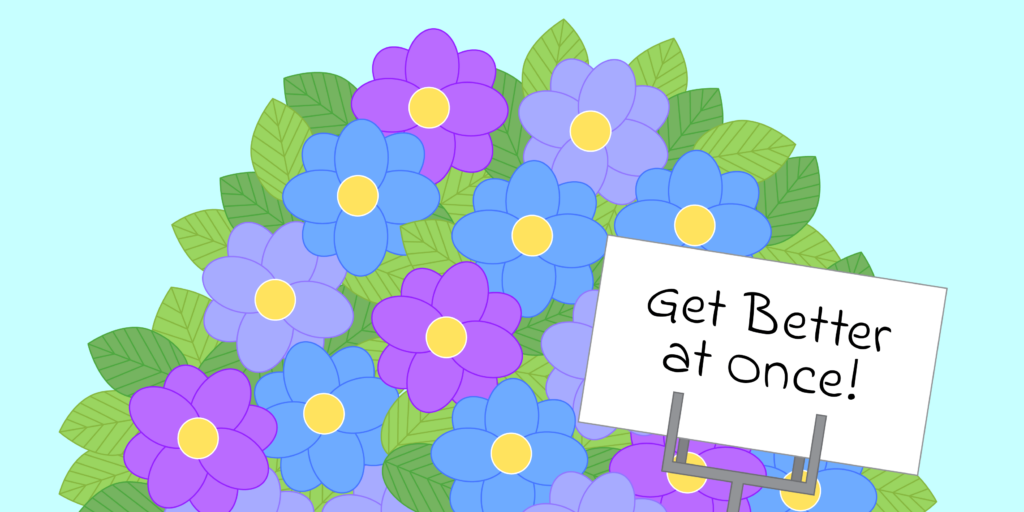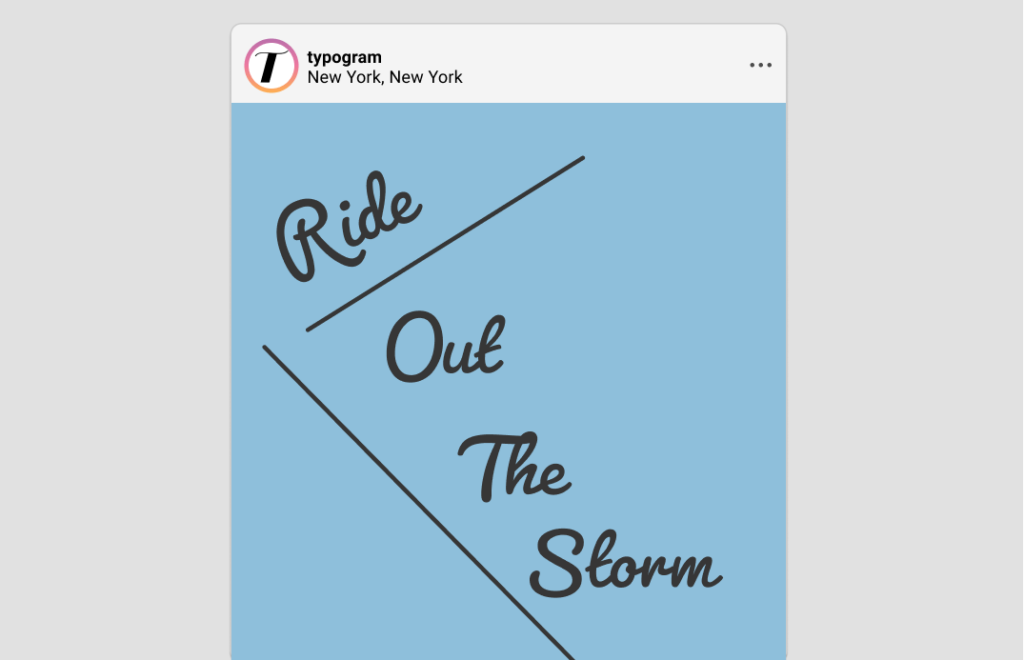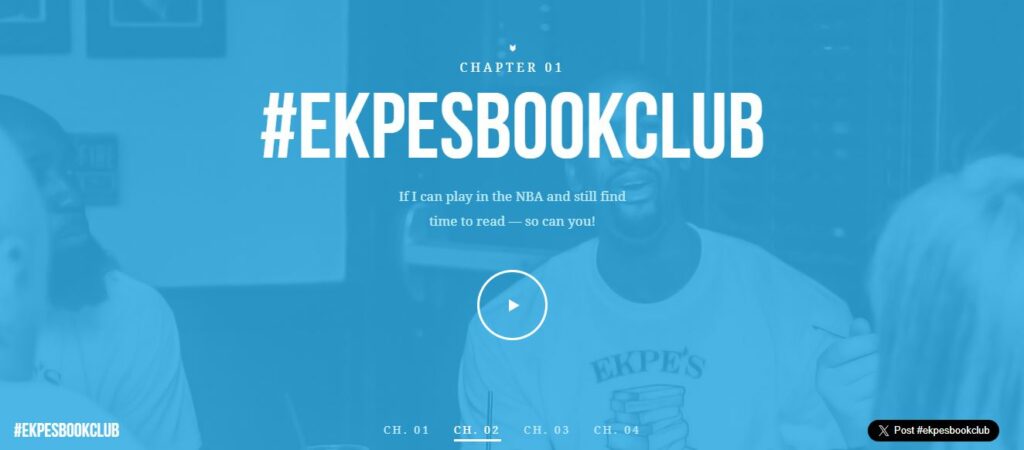
Good typography is responsible for making or breaking your marketing designs. Fonts help convey things like the tone and personality of a brand and aid in enhancing readability. There isn’t a single font that universally fits everyone’s preferences or needs. That’s why new fonts keep popping up to fulfill different marketing needs. However, navigating licensing issues and paid fonts can be daunting for designers and marketers.
In such instances, Google Fonts emerges as a valuable resource. Its accessibility and diverse selection make it a go-to destination for designers seeking quality typography solutions without breaking the bank.
Our goal is to present to our readers, the best Google Fonts to use in your marketing designs. And there are so many options for a scroll-stopping design experience.
But first, let’s explore more on what Google Fonts are.
Google Fonts is an interactive font directory with fonts that are free and open source. This is one of the major reasons to choose Google Fonts. You can use them without worrying about licensing fees.
It may occur to you that other websites offer similar free fonts with even better and more decorative fonts than the Google Fonts directory. But at what cost? Most of those websites could be dodgy and you wouldn’t know what type of malware you’re downloading along with those fonts.
The Google Fonts directory beats them by a far lead in terms of security, quality, and worldwide recognition.
At the time of writing this blog, Google Fonts records 1595 font families. A font family is a collection of fonts that have similar characteristics or design elements.
Having such a vast collection of free and ready-to-use font collections is one of the top reasons that Google fonts are used by almost everyone in all types of industries. It’s also the reason that this blog is important.
Finding the perfect font could be like finding a needle in a haystack. So sit back and let us unravel some of the best Google fonts that you can use in your marketing design.
For ease of perusing, we will categorize the fonts into the familiar classifications of Sans, Sans-Serif, Display, Handwriting, and Monospace.
Let’s begin with the best Google Fonts in the Serifs group.
Sans Serif fonts are fonts that have small strokes or “serifs” at the end of each letter. These fonts are used in traditional settings owing to their classy appearance. They are highly favored by newspapers, books, and magazines because they are easily read in smaller sizes. After all, the serifs in these letters act as a line that the eye can follow.
Let’s take a look at the best Google Fonts in this category.
The Roboto Slab is a font created by Christian Robertson. It has a geometrical font form complemented with friendly open curves. This facilitates a smooth read regardless of the point size. It’s one of those Serif fonts that pairs well with several sans-serif fonts.
Roboto Slab is a favorable font to be used in websites as Google Fonts metrics record 7,400,000 use cases with the highest use being recorded in the United States.
Here’s a look at the Roboto Slab used in a title in a heavier style:
Using Roboto Slab for titles can help with the visual hierarchy as it has a way of commanding attention. Not only so but with weight changes, the Roboto Slab font can have a diverse array of uses and thus it’s easily one of the best Google fonts to use in your marketing designs.
Merriweather is the optimal Serif font to read on screens as it’s set to give a pleasant experience by the designers at Sorkin Type. Its open form and the mild diagonal stress make it a unique choice among Serif fonts. It pairs well with its sans-serif counterpart – Merriweather Sans.
Owing to its traditional look it works well on literary publications. It has also been featured on websites in various capacities more than 3,100,000 times with the highest usage seen from the USA. It’s no secret that this would fall under the umbrella of one of the best Google Fonts.
Here’s what it looks like on a design as both the heading and text body:
The title uses the Merriweather font in an italicized style. One of the striking things about using this font in this style is the shift of some letters. The letter “f” changes to a curved ending and the letter “a” transforms from a double-storey to a single-storey. It’s quite a unique transformation marking the Merriweather font as a versatile font and one of the best Google Fonts in the depository.
The Playfair Display font is a creation of designer Claus Eggers Sørensen. This font is a perfect example of the results of the transition that took place in the late 18th century from heavy quill nobs to more refined pointed steel pens. With the dawn of printing technologies, printing letters that varied in hairline sizes became fashionable. This font demonstrates this practice perfectly.
This is why this font is suitable for literary publication settings and headlines. The large lettering can command attention on any busy page.
Google Fonts metrics report this font being featured in over 5,600,000 websites overall.
Playfair Display can be one the best Google fonts to use in logos as exemplified below:
This font gives the logo a very serious traditional look. And since it’s a veterinary service, the font imparts a sense of reliability and trust one of the characteristics of this font that makes it one of the best Google Fonts.
Moving on to Sans Serif fonts, these are named as such owing to the lack of “serifs” like we previously looked at in the Serifs section. The Google Fonts in this category are best to use in digital spaces as they translate well into that setting and are easy on the eye.
Let’s look at the best Google Fonts in this group.
The Roboto font is characterized by its geometric structure complemented by gentle, open curves, the font strikes a balance between approachability and professionalism, making it suitable for various applications, including business websites.
The Google Fonts metrics show Roboto utilized on over 570 million websites worldwide making it the most-used font in the world from this list of the best Google Fonts.
Here’s a logo done using the Roboto font:
As seen above, the font is clear and precisely communicates a sense of professionalism that some brands long to display in their logos.
Originating in the summer of 2010 by designer Łukasz Dziedzic from Warsaw, Lato is a sans-serif typeface family. Its name, “Lato,” translates to “Summer” in Polish. Lato’s letterforms feature semi-rounded details, evoking a sense of warmth while maintaining a sturdy and serious structure.
Although the typeface adheres to classical proportions, it’s perfectly suitable and versatile to work in digital and print work both.
According to Google Fonts metrics, Lato is present on over 19 million websites, with its primary usage concentrated in the United States.
Here’s an example of the Lato font used in a website:
The clear-cut appearance of the Lato font makes it a good choice for websites as seen above. The right style adjustments and font size, help direct the visual hierarchy of the website. Thus this is one of the best Google Fonts to add to your list.
Renowned graphic designer, Julieta Ulanovsky crafted Montserrat by drawing inspiration from the vintage posters and signage found in Buenos Aires, capturing the essence of urban typography. Despite this inspiration, the font has been refined to a lighter weight, rendering it suitable for extended passages of text.
Montserrat has been utilized on over 18 million websites globally according to the Google Fonts database. It’s a great choice to use in different types of designs from logos to headlines and even websites like the example featured below.
The entire website uses the Montserrat font in a bold style and there’s absolute clarity in the words owing to the font and its unique geometric features that are easy on the eye. It’s no surprise that it favors as one of the best Google Fonts there is.
Script fonts, also known as Handwriting fonts, mimic the appearance of handwritten text. They replicate the natural variations and irregularities found in handwriting, adding a personal and organic touch to designs. Script fonts are often used for informal or creative projects where a more casual or personalized feel is desired.
And we’re about to look at the best Google Fonts that are found in this category.
Pacifico, a lively brush script font created by Vernon Adams in 2011, draws inspiration from the vibrant American surf culture of the 1950s. Unlike slanted forms, Pacifico maintains an upright stance with a flowing cursive style. It is only available in a single regular style with an inherent boldness.
It’s particularly well-suited for headings and related typographical elements. However, owing to its bold nature it should be noted that this particular font doesn’t work well for large bodies of text.
The Pacifico font is featured on over 610,000 websites making it clear why it’s one of the best Google Fonts within its category.
Here’s a look at how it looks like in use:
The casual flowy style of this font makes it suitable for quotes like this.And because the strokes are legible there are no readability issues too.
Moving on to the next one on our list of the best Google Fonts.
Named aptly, Dancing Script is a dynamic typeface characterized by lively letters that appear to bounce. Featuring large caps that extend below the baseline, it exudes a friendly and spontaneous aura.
The beauty is the natural flow of the letters that mimic real handwriting from love letters of yore.
Making it perfectly suited for feminine, floral brands, and brands that like to exude romance. It also pairs harmoniously with Sans Serif Fonts like Roboto.
This font is prominently featured on over 630,000 websites worldwide.
Although the United States accounts for the highest usage, there is also significant utilization from individuals in Vietnam and Malaysia.
Here’s an instance of this font in use in a Canva wedding invitation Template:
It’s like we mentioned before, this font is one of the best Google Fonts in the handwriting font category owing to its playful and romantic allure which is seen in the above invitation design.
Exuding a carefree and open vibe, Indie Flower boasts a bubbly character. It possesses a slightly bolder and rounder appearance compared to other handwriting fonts, with ample spacing between letters to enhance clarity for readers.
Indie Flower is perfect for posters and flyers. This font mimics free-flowing handwriting which is why it’s a perfect choice to use in casual settings.
Indie Flower is showcased on over 460,000 websites globally.
Here’s what it looks like on designs:
The font is appropriate for this design as it adds a personal touch making it one of the best Google Fonts in this category.
Display fonts are typefaces designed for larger sizes, typically for headings, titles, or other prominent text elements in designs. They often feature unique, decorative, or stylized characteristics that grab attention and convey a specific mood or aesthetic.
Unlike fonts for text bodies, which prioritize readability at smaller sizes, display fonts prioritize visual impact and artistic expression. They play a crucial role in branding, advertising, and graphic design projects as this group of fonts includes fonts from all three classifications: Serifs, Sans Serifs, and Handwriting.
Let’s check out some of the best Google Fonts found within this group.
The Lobster font stands out for its distinctive characteristic: it offers multiple versions of each letter, creating a handwriting-style display that adjusts the connections between characters (ligatures) based on the specific pairing of letters. This unique feature contributes to a naturally flowing relaxed font.
The Lobster font has a very bold characteristic with a retro vibe. Even though it’s a script typeface, the bold and large features make it a Display font ideal for headlines and one-liners.
This charming font graces the pages of over 550,000 websites, according to Google metrics making it a prevalent choice across the web.
Here is a design using the Lobster Google Font:
You can see why this font is good with one-liners. It can aptly grab your attention thus making it one of the best Google Fonts in this category.
This first-century Roman inscription-inspired font embraces classical proportions as its foundation. Yet being far from a revival of an existing font, it seamlessly intertwines the rich history of the Latin alphabet with a modern twist, infusing it with a contemporary essence. That’s why we consider it one of the best Google Fonts.
The all-caps lettering is perfect for titles owing to its thin lines and classical proportions.
This sophisticated typeface has firmly established its place in the digital realm. According to Google Fonts metrics, the Cinzel font appears on more than 280,000 websites.
Here’s an example of it in use:
The Cinzel font is used along with the Cinzel Decorative font, another style in the Cinzel family. As is evident, it can be used in industries that can carry the mystical allure in this font. For those industries, this can be one of the best Google fonts to use in their designs.
Bebas Neue, crafted by Ryoichi Tsunekawa, stands out as one of the best Google Fonts for big bold texts. Its design boasts sleek narrow lines and refined shapes, with a touch of boldness that effortlessly grabs attention amidst intricate designs.
This font is great for all-caps headlines, captions, and packaging. Moreover, its versatility shines through as it complements both serif and sans-serif fonts seamlessly when used within the same composition.
According to Google Fonts metrics, this font is present on over 190,000 websites. This font has surely made a significant mark across the web.
This website uses the Bebas Neue font in various places across the site:
The goal to grab the visitor’s attention is accomplished here with the use of this big and bold all-caps font. If a font for a title is what you’re looking for Bebas Neue can be one the best Google Fonts to try out.
Monospaced fonts, also known as fixed-width or non-proportional fonts, allocate the same amount of horizontal space for each character. In simpler terms, this means that every letter, number, and symbol occupies the same width on the screen or page, regardless of its inherent width.
These fonts were originally developed for typewriters. Monospaced fonts are commonly used in coding but they can also give a certain retro old-timey vibe if that’s what you’re looking for.
Let’s look at some of the best Google Fonts in this category to see how creative you can get with these.
While the classic Courier font holds its place as an icon, its readability might not be optimal. Enter Courier Prime, a refined version that addresses key readability concerns.
If you’re seeking a typewriter-style font for your design, Courier Prime is the perfect choice as it gives out an old-fashioned vibe.
We say this is one of the best Google Fonts available in this category because the Google Fonts metrics speak for themselves. This versatile new and improved font can be found enhancing the design of over 27,000 websites across the digital space.
Here’s the Courier Prime font in use in a brand guide on Behance:
The muted colors and the mystical look of the brand are maintained using the Courier Prime font showcasing that it’s not just an option for coding but also for designs.
The Roboto Mono font unlike the Courier Prime font doesn’t have serifs on the ends except in the letters “i” and “l”. And much like all the other Roboto fonts the Roboto Mono font is also optimized for reading on screens.
The Roboto font can be a coder’s dream font owing to its modifications that accommodate coding protocols and requirements. But it’s also one of the best Google fonts to be used instead of Courier fonts in design that require a vintage feel.
Google Fonts data shows that this adaptable typeface is featured in over 390,000 websites, solidifying its presence across the digital world.
Here’s a look at Roboto Mono used in an identity design as a secondary font:
In this specific identity design, the Roboto Mono font helps maintain the retro vibe.
Crafted with editorial applications in mind, Space Mono embodies a blend of geometric principles and Grotesque intricacies within its letterforms making it one of the best Google Fonts in this classification. Drawing inspiration from headline typefaces prevalent in the 1960s, it showcases distinctive features like flattened descenders, giving characters a unique visual flair.
The Space Mono font has a unique style of its own even though it’s a monospace font. It can be creatively used in retro-style designs and modern sophisticated designs as well.
This versatile typeface can be found featured on over 150,000 websites across various digital platforms according to Google Fonts metrics.
Here’s a look at how it can be used in designs:
This is by far one of the best Google Fonts in the category of Monospace fonts. The goal is to use the font as per the suitability to your brand as the above example shows.
This font complements the brand well, as it aligns with the brand’s focus on monitoring online discourse during EU elections. They play a crucial role in facilitating reliable and secure elections in the digital age. The digital forward component in their brand thus pairs well with a monospace font like this that also has a better form.
We believe this list contains the best Google fonts fit for different industries and that they are legitimately good for your marketing designs.
According to font statistics, Google Fonts are utilized across more than 50 million websites. The statistics speak for themselves and tell you how prevalently Google Fonts are used. And these are the best Google Fonts around. So we urge you to take some of these fonts for a spin and see how they can help you elevate your marketing designs to stop a scrolling thumb.